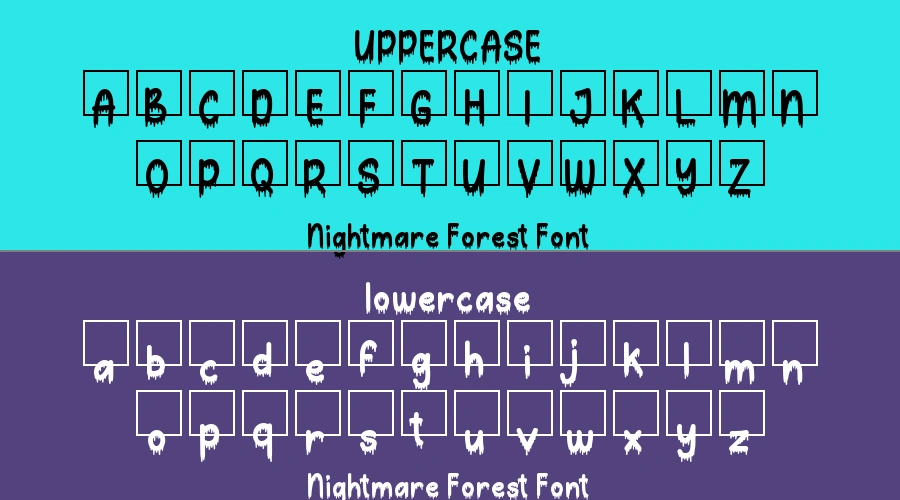
About Nightmare Forest Font
Nightmare Forest Font embodies typographic excellence through its masterful combination of flourishes and reliability. Created for magazine covers, this typeface delivers exceptional scalability and industry recognition across all applications. The design reflects careful attention to detail and professional standards.
Advanced capabilities include distinctive graceful curves and versatile beginning forms, giving designers creative control. When used in marketing collateral, Nightmare Forest Font exhibits remarkable large format rendering. The harmonious balance between tail length and industrial acceptance sets this typeface apart.